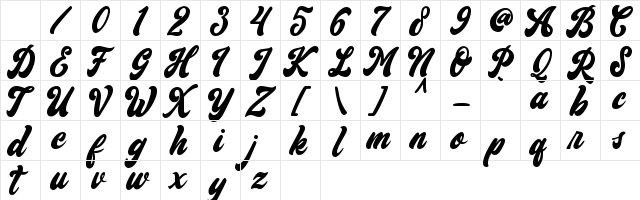
Vintage Brands wears its vintage influences proudly, with letterforms that recall mid-century signage, classic packaging, and nostalgia-driven design.
Font Pairing: Combine Vintage Brands with a simple slab or neutral sans - period-accurate companions reinforce the vintage feel without competing for attention.
Pro Tip: Lean into Vintage Brands's period character by pairing it with aged paper textures, muted colour palettes, and vintage illustration styles.